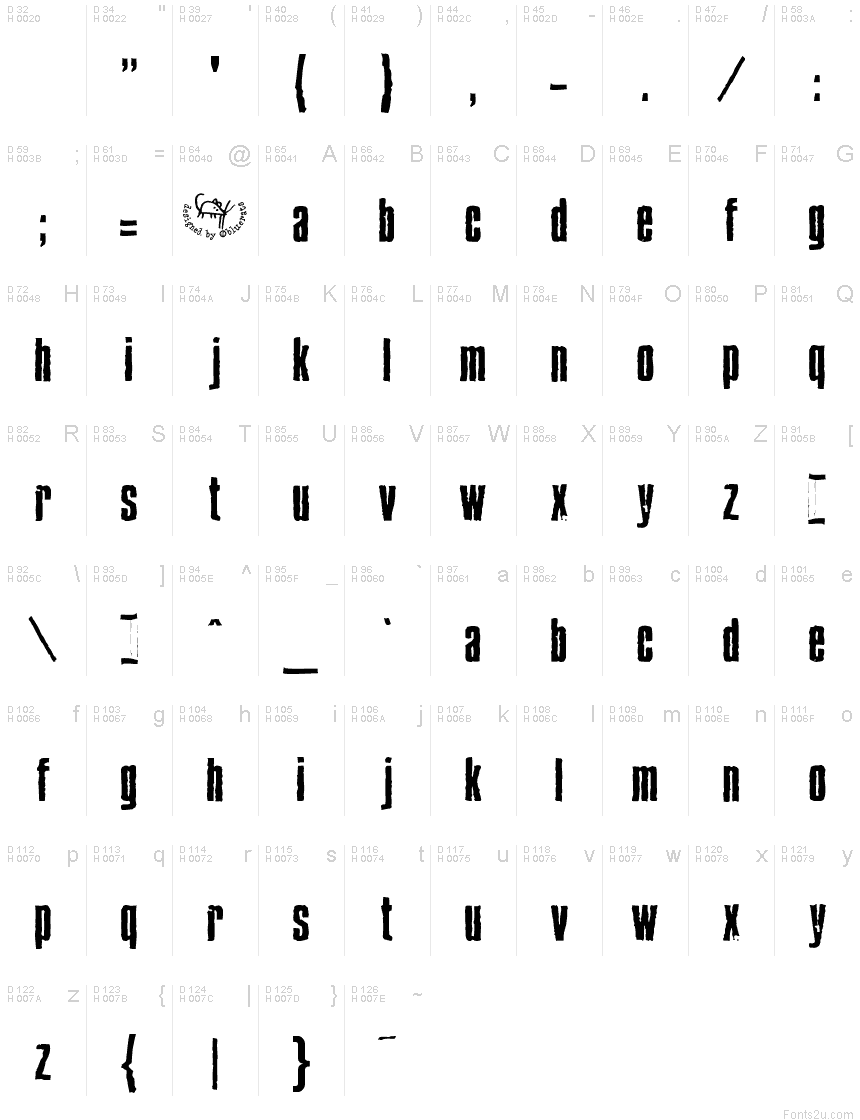
BlueCake
Blue Cake font by Les Rats Bleus slams thick, irregular strokes into a tall, compressed silhouette, giving every word a scraped, torn-from-a-photocopier edge. With its jagged sides and inky, almost stenciled texture, it is a free eroded display font that instantly roughens up clean layouts and adds a raw, underground attitude. Set BlueCake large, and let the gritty outlines do the talking while a simple, neutral sans serif handles supporting text.
Using Blue Cake, you can push bolder concepts for gig posters, horror titles, DIY zines, album covers, skate or streetwear branding, and edgy social graphics. The narrow forms help long words stack into tight columns without losing impact, so it works beautifully in headlines and logotypes where space is limited. This free font pairs especially well with a light, modern grotesque at smaller sizes to keep everything legible while the main message stays loud and chaotic.